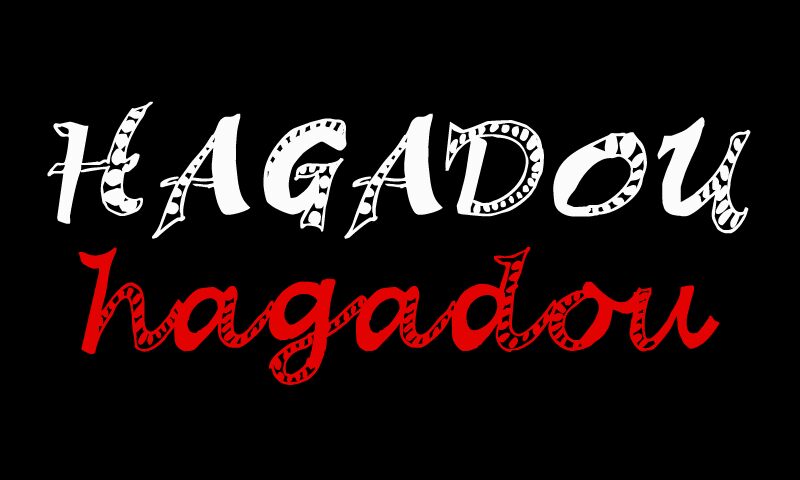
Hagadou by Cloutier Fontes is a free decorative display font with lively, uneven letters and exaggerated serif shapes. Alternating stripes, spots, checks, and leaf-like marks turn each character into a small piece of black-and-white pattern.
Its playful storybook style suits children's publishing and theatrical posters. The patterned letters can also become part of toy packaging or craft-event graphics, especially alongside similarly loose illustration. It has an easy fit with family audiences and young readers who enjoy busy, hand-drawn detail.
Hagadou Regular is a font by CloutierFontes, designed by Steve Cloutier in 2012.